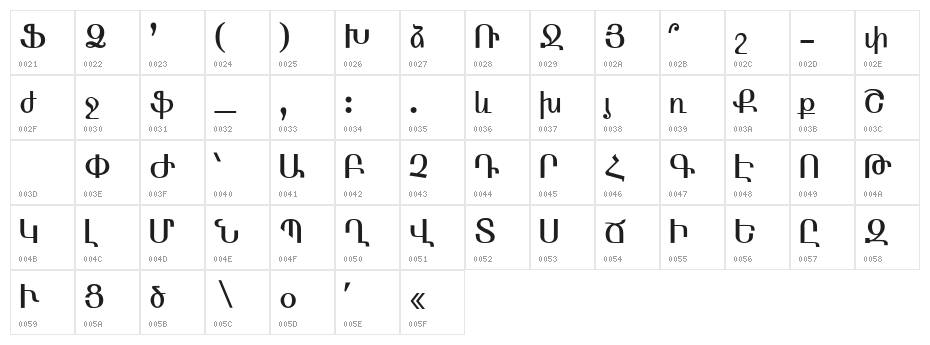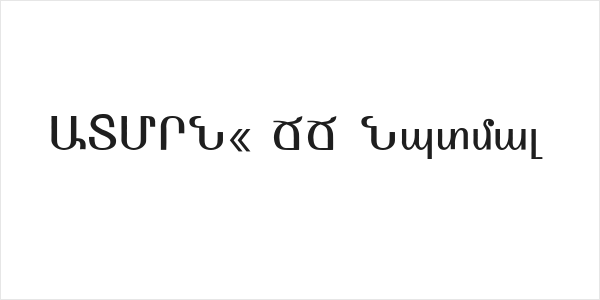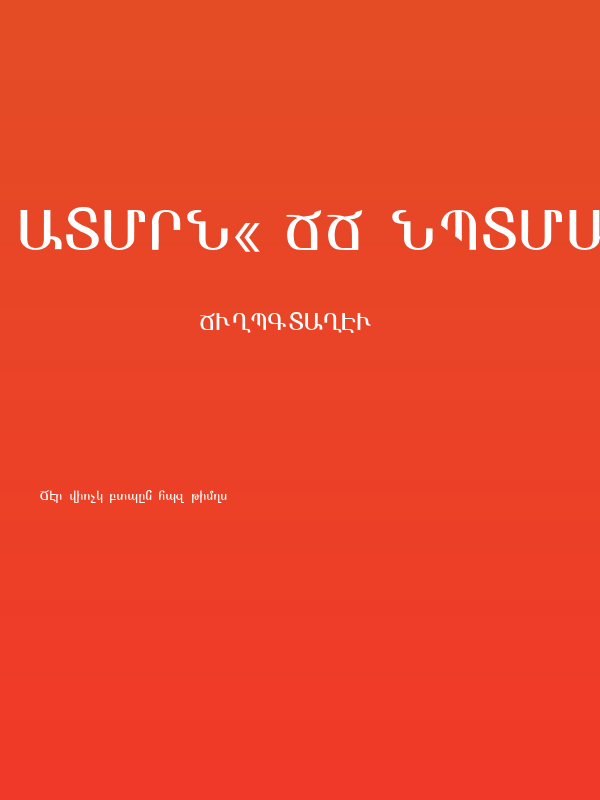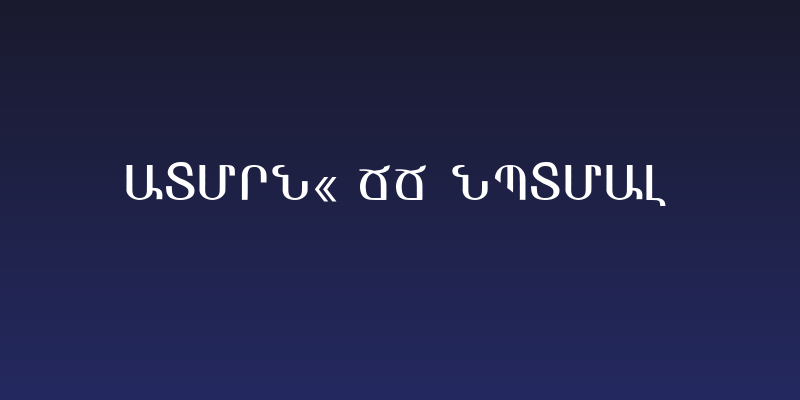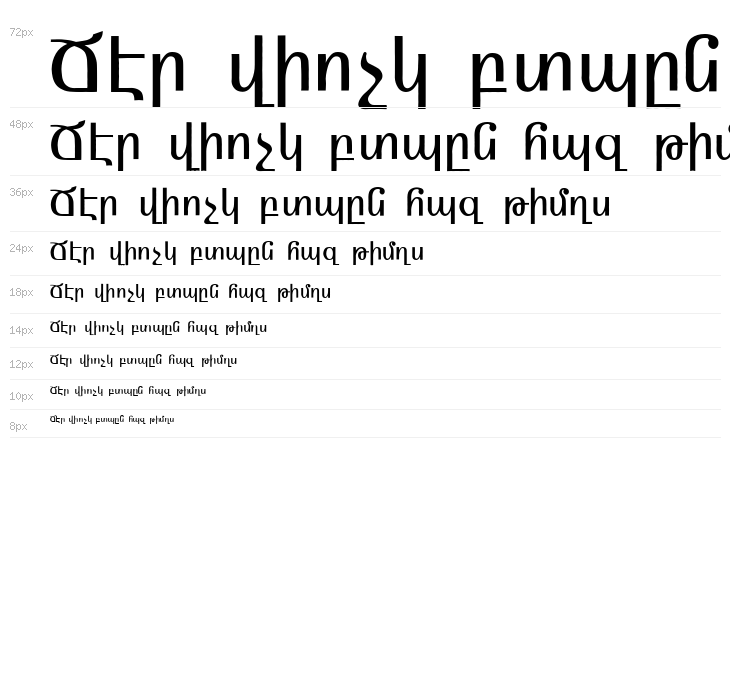
ARMEN_ TT Normal Font
✎ Calligraphic
| حالة الاستخدام | Headlines, Logos, Cultural publications |
| مشاريع مقترحة | Ideal for cultural publications, branding, posters, and digital media that require an Armenian script with a modern look. |